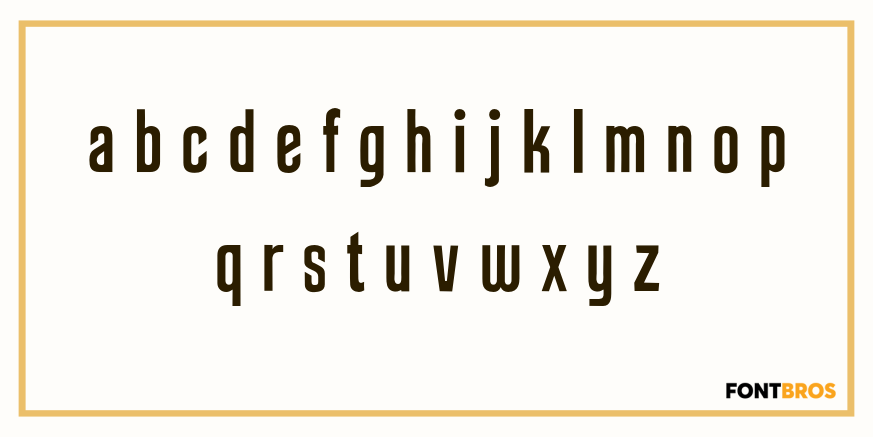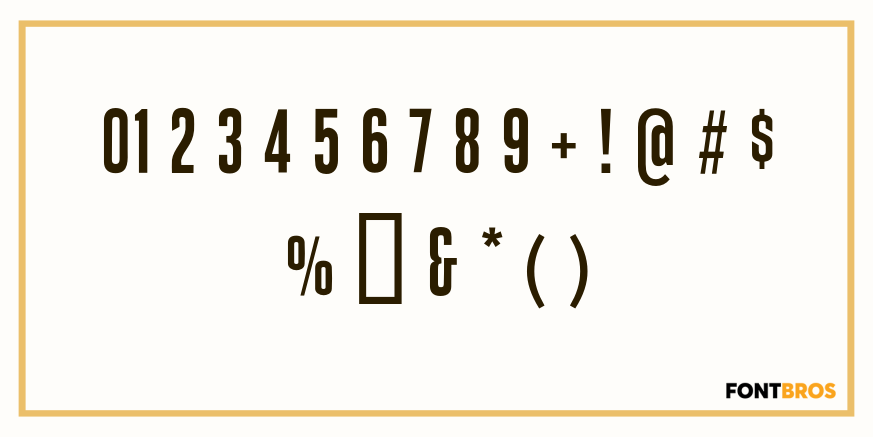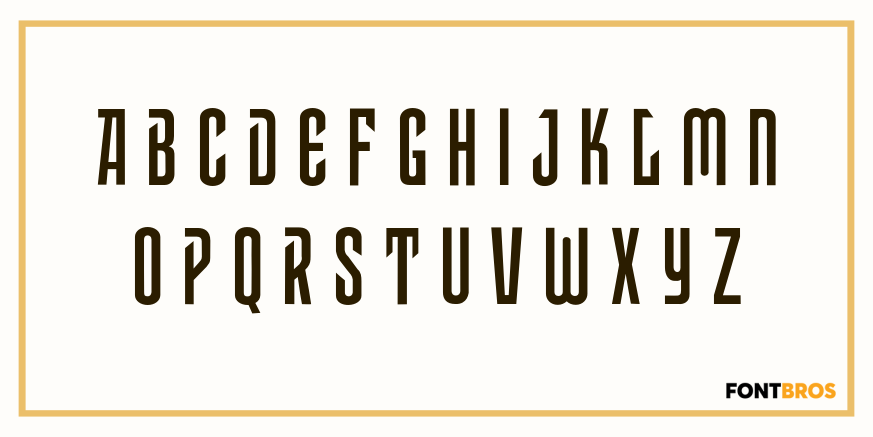
Roundhead
A surprisingly modern looking condensed sans serif issued by Mackellar, Smiths & Jordan foundry in 1887. Its narrow width makes it useful for long copy headlines.
Designed by the freelance type cutter Charles Beeler who did many fonts for Mackellar.
Roundhead by Solotype